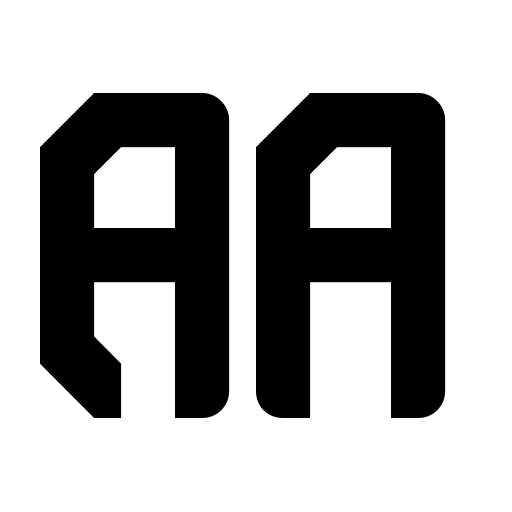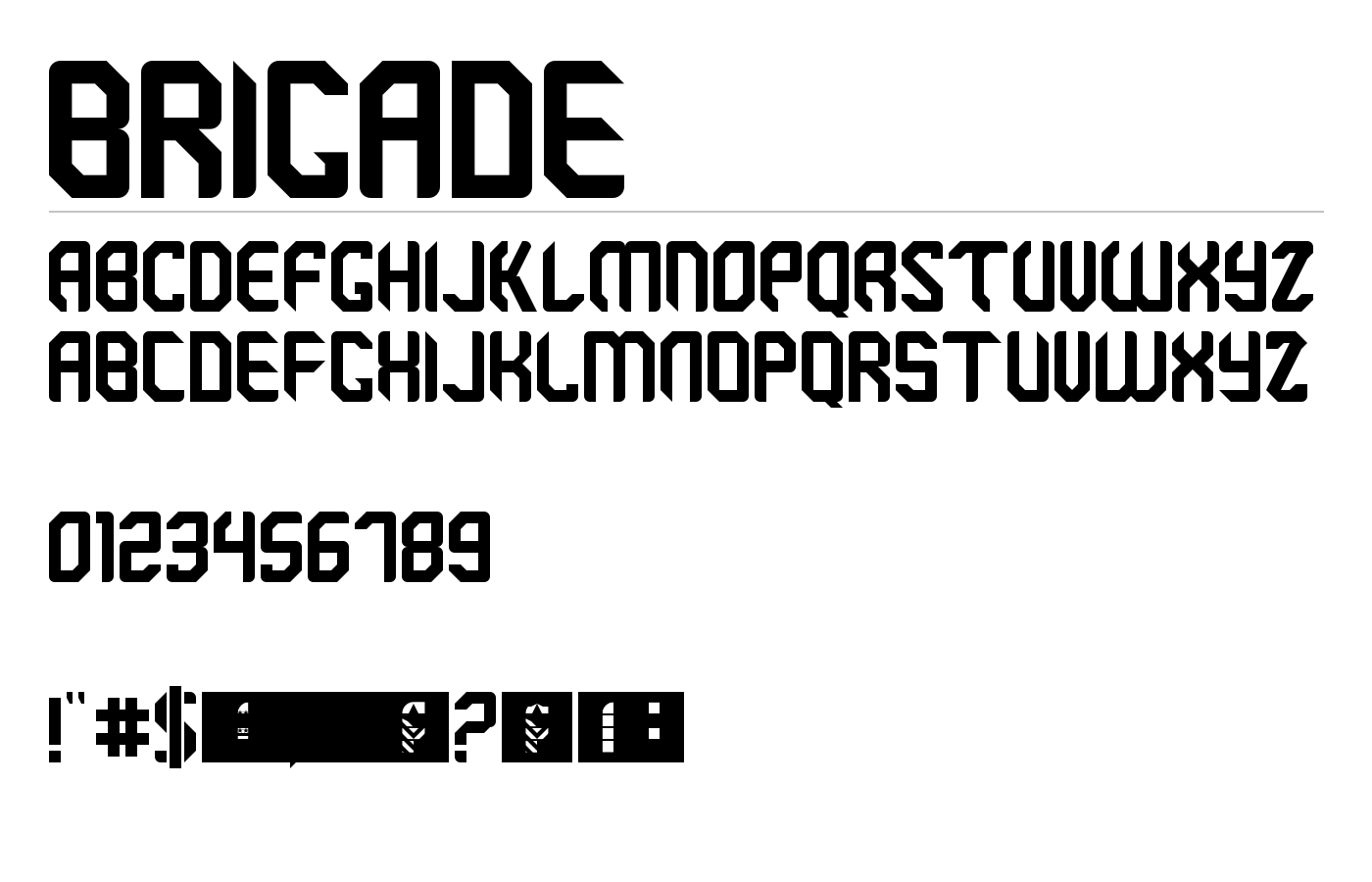
Brigade is a bold, geometric sans serif font with a strong, industrial feel characterized by sharp angles and uniform stroke widths. Its condensed letterforms and high x-height make it highly legible and impactful, perfect for headlines, logos, and branding that demands a modern, assertive style with a touch of retro-futuristic edge. This font works especially well in creative design contexts where a distinctive, confident visual statement is needed.
About brigade Font